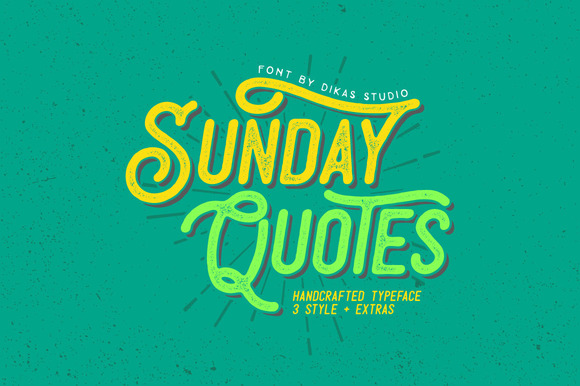
Feast your eyes upon the Sunday Quotes Font family, a stunning ensemble of three enchanting handwritten fonts crafted with the utmost care and precision. Enter a world where creativity flows like a cascading waterfall, where your words dance across the page with an elegance that captivates and inspires. Discover the magic of Sunday Quotes, a font family that effortlessly blends timeless charm with a touch of contemporary flair.
Immerse yourself in the artistry of Sunday Quotes Regular, a font that radiates warmth and authenticity. Its gracefully flowing lines evoke the beauty of the handwritten word, capturing the essence of heartfelt notes and personal correspondences. Sunday Quotes Swash takes center stage with its captivating flourishes, adding a touch of whimsy and playfulness to your creations.
Transport yourself to a bygone era with Sunday Quotes Vintage, a font that exudes a sense of nostalgia and charm. Its carefully crafted characters draw inspiration from the timeless beauty of vintage signage and advertisements, adding a touch of history and sophistication to your designs. With Sunday Quotes, the possibilities are endless. Whether you're crafting captivating logos, designing elegant wedding invitations, or creating heartfelt social media posts, this font family will elevate your work to new heights.
Step into the realm of creativity, where words become art and your imagination takes flight. Let Sunday Quotes be your guide, leading you to a world where every letter tells a story and every design is a masterpiece. Embrace the beauty of the handwritten word and allow Sunday Quotes to transform your creative visions into reality.